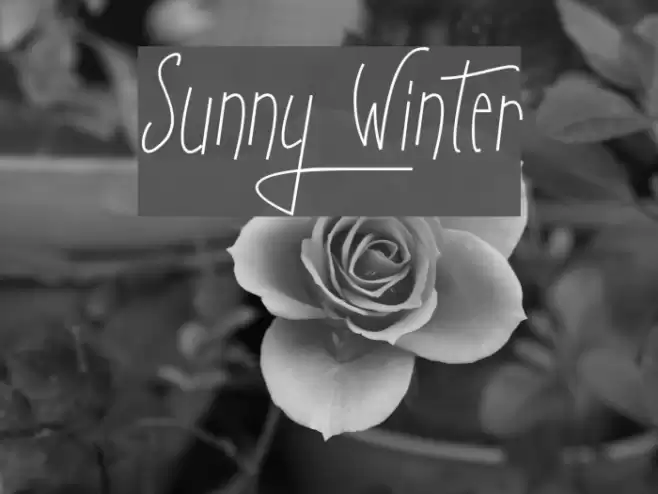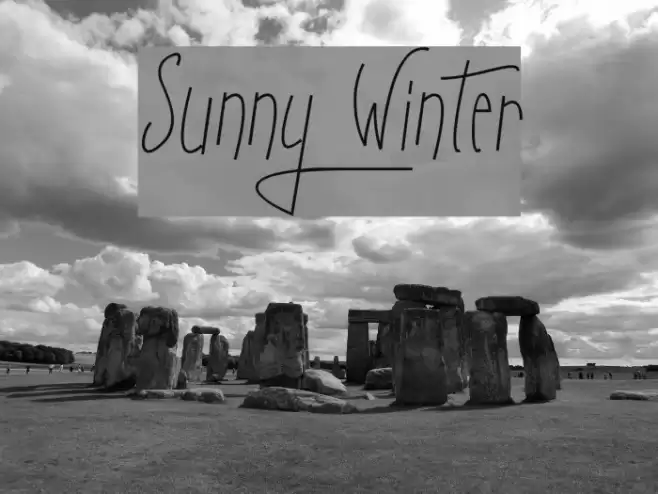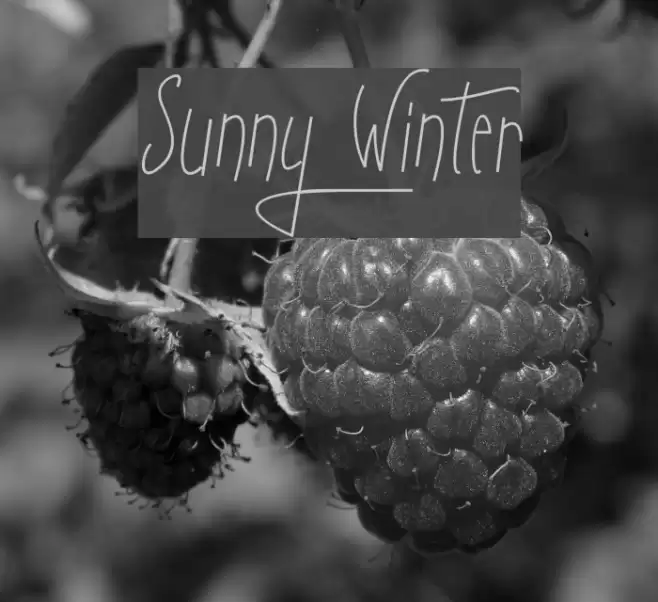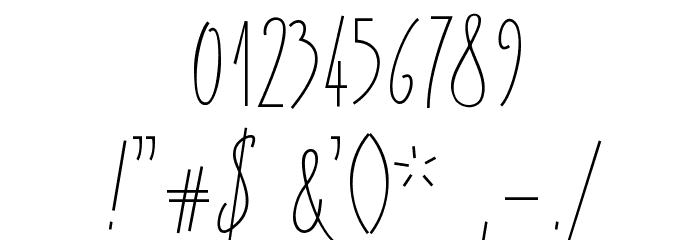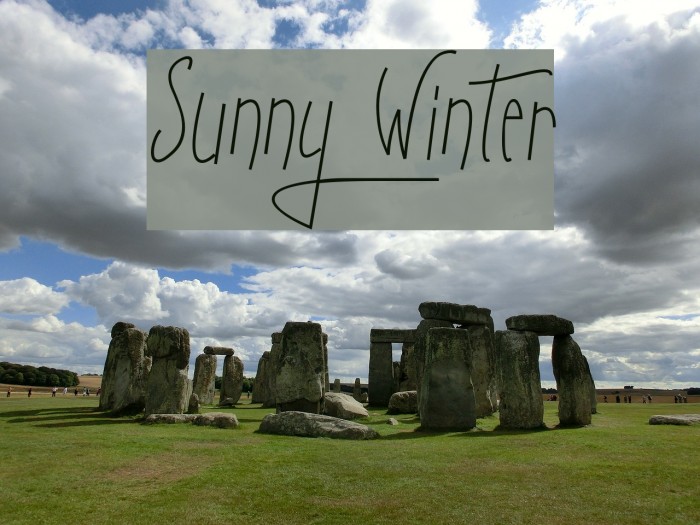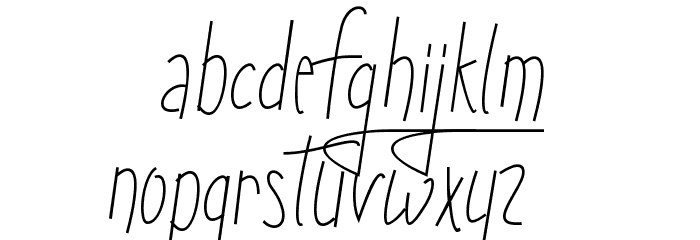
Sunny Winter Font
Sunny Winter Description
This font features a whimsical and flowing handwritten style, characterized by its elegant and elongated letterforms. The uppercase letters exhibit a playful yet sophisticated flair, with unique curves and loops that add a sense of movement. The lowercase letters maintain a consistent style, complementing the uppercase with their own distinct charm. Numbers and special characters are crafted with the same attention to detail, ensuring a cohesive look across all elements. The overall design is airy and light, making it ideal for projects that require a touch of elegance and personality.
A whimsical, flowing handwritten font with elegant, elongated letterforms from Uncategorized fonts.
- Proposed Projects: Ideal for wedding invitations, greeting cards, personal branding, and creative projects that require a touch of elegance.
- Use Case: Logos, Invitations, Greeting cards